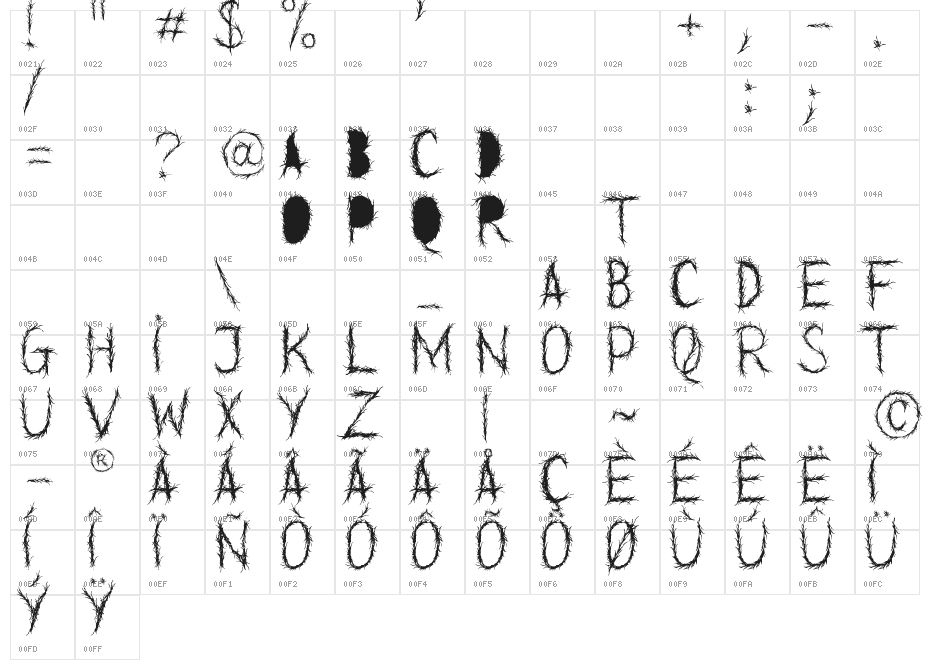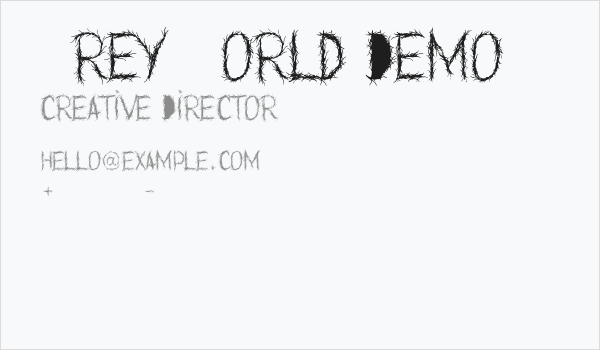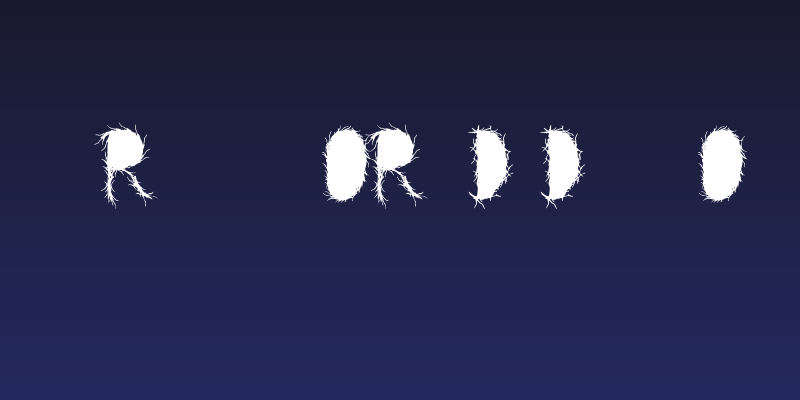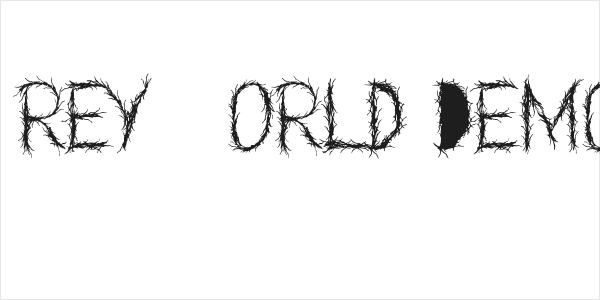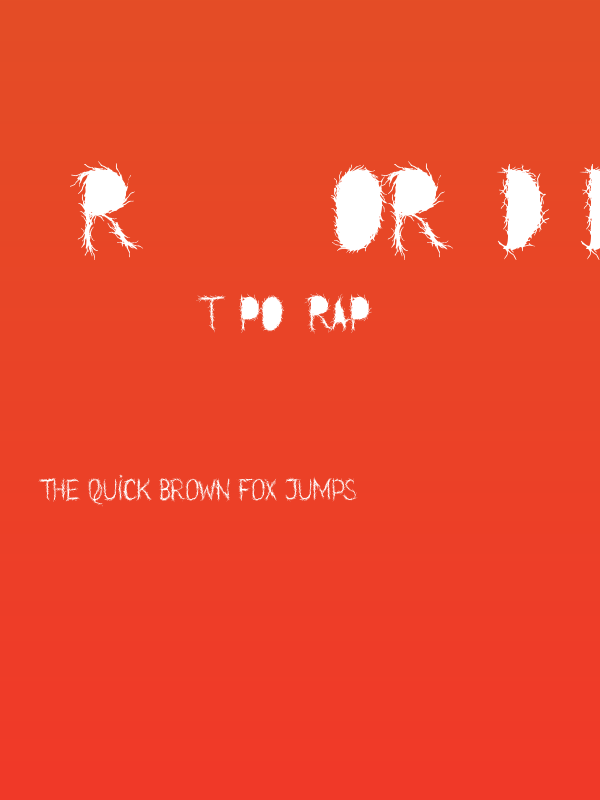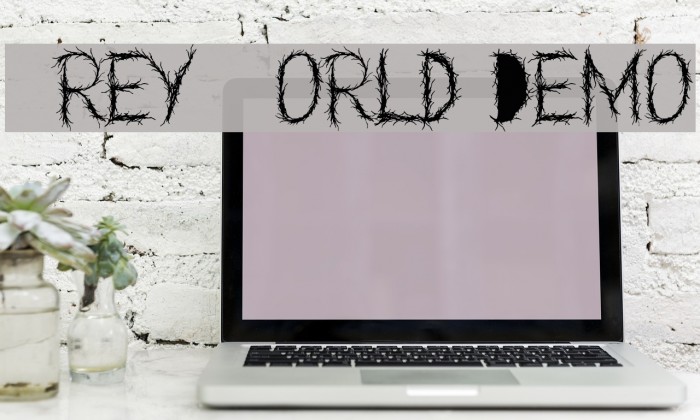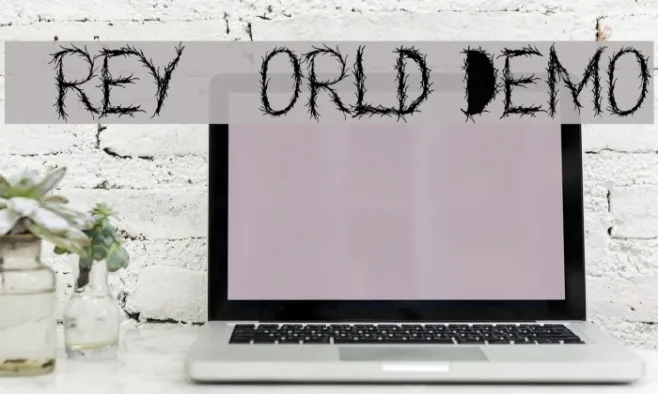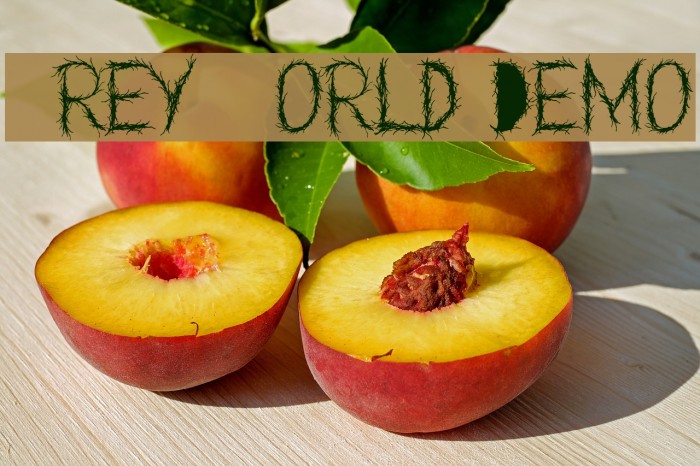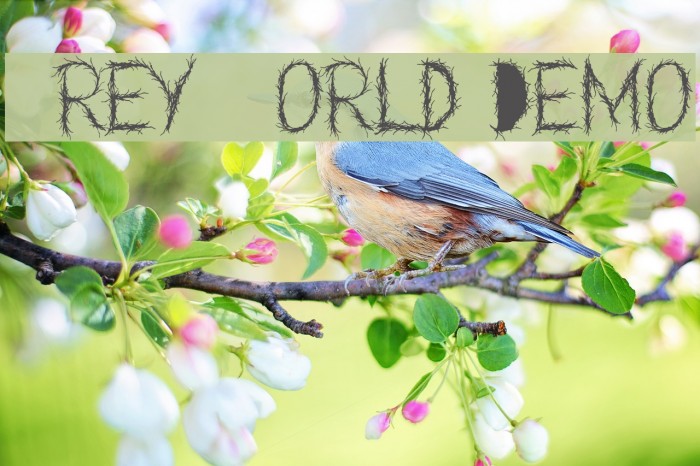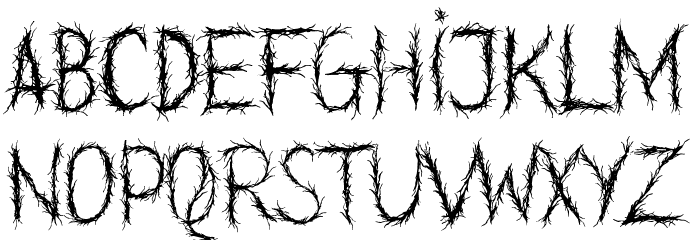
Grey World Demo Font
Grey World Demo Description
This font features a unique and edgy design, with characters resembling thorny vines or barbed wire. Each letter is composed of sharp, jagged edges that give it a wild and untamed appearance. The uppercase and lowercase letters maintain a consistent style, with intricate detailing that adds to the overall chaotic aesthetic. The numbers and special characters follow the same thorny theme, ensuring a cohesive look across all glyphs. This font is perfect for projects that require a dramatic and unconventional typeface, making it ideal for horror-themed designs or edgy branding.
| Proposed Projects | Ideal for horror-themed designs, edgy branding, album covers, or event posters. |